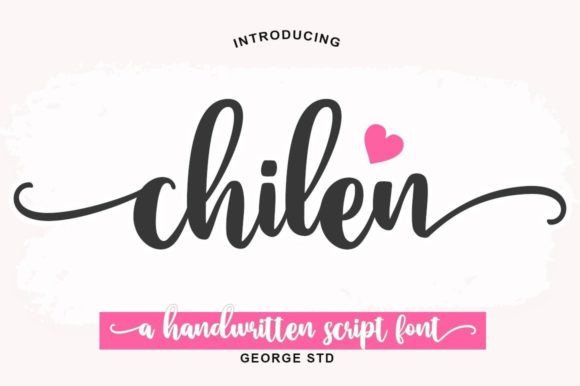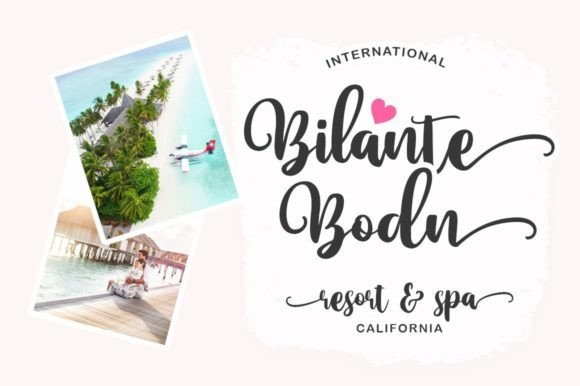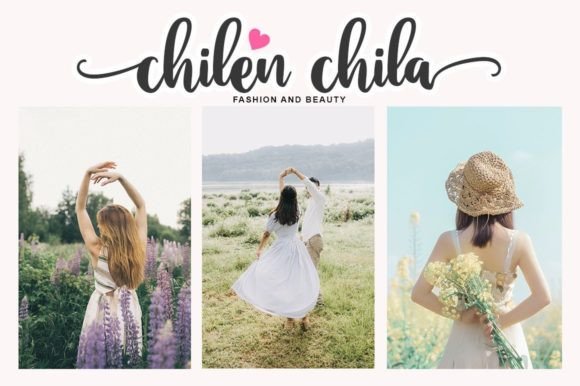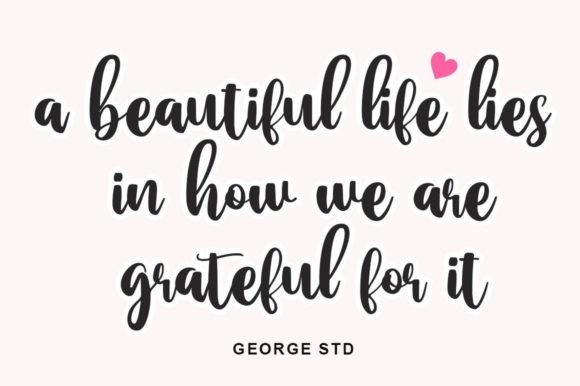
About Chilen Font
“Chilen is a striking handwritten font that effortlessly combines boldness, flow, and elegance. Its graceful and well-balanced characters make it a versatile choice, suitable for a wide range of designs. By incorporating Chilen into your creative projects, you’ll instantly elevate them and make them truly outstanding.
What sets Chilen apart is its bold yet elegant demeanor. The font’s flowing strokes create a sense of movement, adding a dynamic and captivating quality to your text. Whether you’re designing logos, branding materials, invitations, or any other creative piece, Chilen imparts a touch of sophistication that commands attention and leaves a lasting impression.
Chilen’s versatility allows it to seamlessly integrate into various design contexts. Its bold and flowing characters adapt well to both formal and casual settings, making it suitable for everything from upscale events and corporate branding to social media posts and product packaging. Regardless of the application, Chilen adds a layer of refinement that enhances the overall visual appeal of your designs.
One of Chilen’s notable features is its PUA coding. This encoding ensures easy accessibility to all the glyphs and swashes, providing you with creative freedom to experiment with different letter combinations and decorative elements. Whether you want to add elegant sweeps to your typography or create custom logos with unique characters, Chilen’s PUA coding simplifies the design process, allowing you to achieve precisely the look you desire.
Incorporating Chilen into your creative projects is akin to adding a touch of sophistication and flair. Its bold, flowing, and elegant handwritten style captures the essence of refined creativity, making it an invaluable asset for designers and enthusiasts alike. Whether you’re working on professional branding or personal creative endeavors, Chilen elevates your designs and ensures they stand out in the most elegant way.
In summary, Chilen is more than just a font; it’s a statement of elegance and style. Its bold, flowing, and elegant handwritten characters, combined with its accessibility through PUA coding, make it a must-have addition to any design toolkit. Embrace the beauty of Chilen and let your creativity soar, creating outstanding projects that leave a lasting impact on your audience.”